9 Round Sans Serif Fonts for UI and Mobile Apps (Perfect for Clean, Modern Interfaces)
Rounded typography keeps showing up in modern interfaces for one simple reason: it feels easier to use.
Hard-edged fonts can sometimes make apps feel overly technical or cold, especially on smaller mobile screens. Round sans serif fonts soften the experience without sacrificing clarity. That balance matters a lot in UI work where readability, spacing, and visual comfort directly affect how people interact with a product.
After reviewing multiple modern typefaces used for branding, interfaces, and app layouts, these are some of the strongest rounded sans serif fonts currently worth considering for UI and mobile projects. Many of them are especially useful for startups, SaaS dashboards, onboarding screens, fintech apps, and modern web interfaces.
9 Best Round Sans Serif Fonts for UI and Mobile Apps
1. TRT Structa Pro
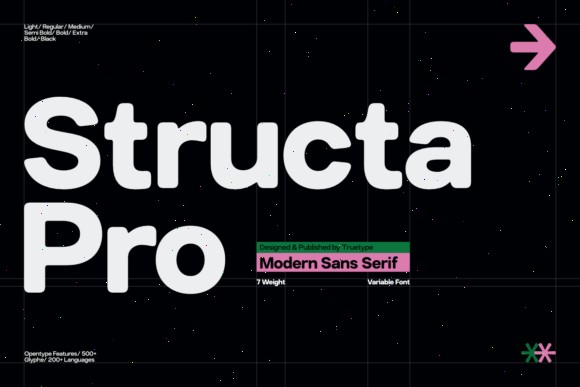
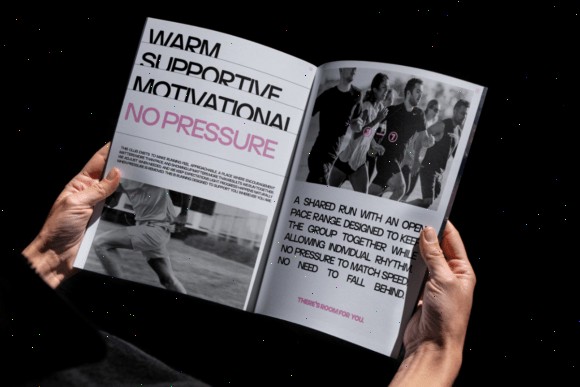
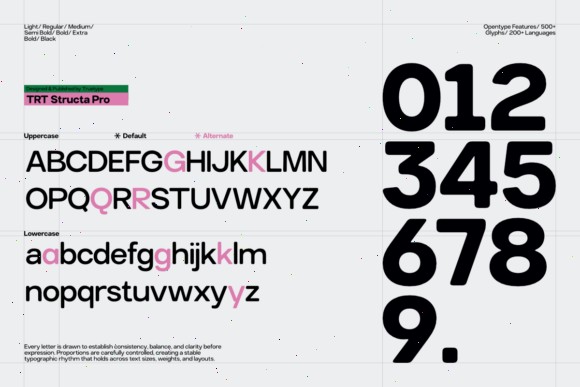
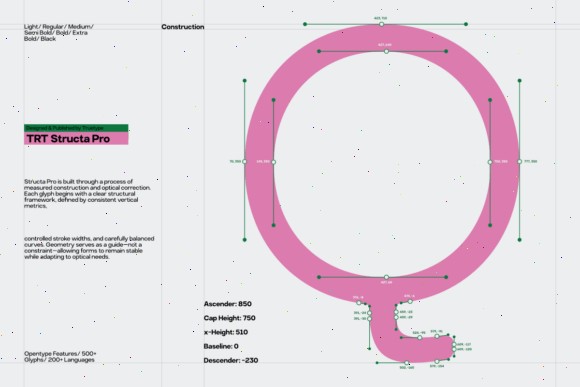
TRT Structa Pro is probably the most balanced option on this list for serious UI work.
It was designed with softness and structure in mind, using rounded terminals and semi-grotesque foundations that feel modern without becoming overly playful.
What stands out:
- excellent readability
- consistent spacing
- multiple weights
- variable font support
- clean digital appearance
The font feels especially strong in:
- mobile navigation
- dashboards
- onboarding screens
- productivity apps
- fintech interfaces
One thing I like about Structa Pro is that it keeps personality subtle. Some rounded fonts become cartoonish quickly, but this one stays professional even in dense UI layouts.
Best for:
- SaaS products
- startup branding
- enterprise apps
- design systems
2. Mallio
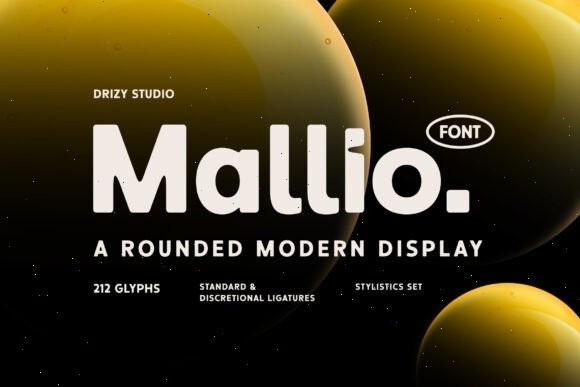
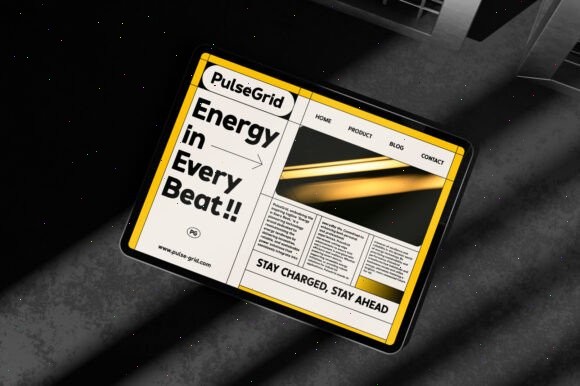
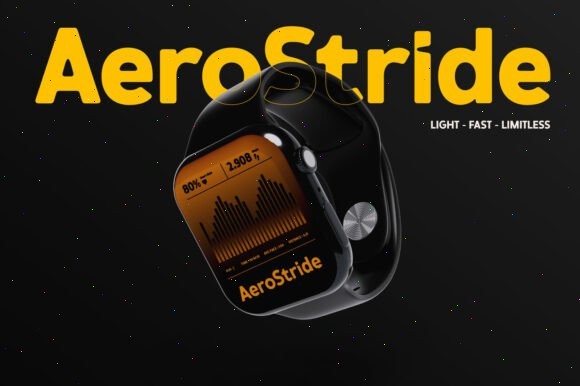
Mallio leans more toward modern startup aesthetics.
Its rounded modern display style gives interfaces a polished and approachable tone while still looking sharp in headers and navigation areas.
The font works particularly well for:
- lifestyle apps
- creative platforms
- modern landing pages
- wellness brands
- social apps
Mallio performs best in medium-to-large UI text. For tiny mobile labels, it can feel slightly heavier than more neutral UI fonts.
What makes it useful:
- soft geometric curves
- modern visual identity feel
- friendly personality
- strong logo potential
3. Softura
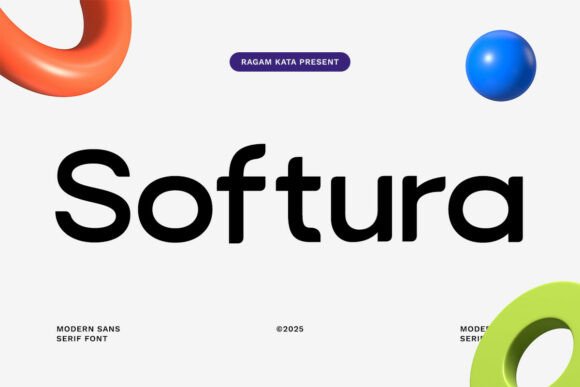
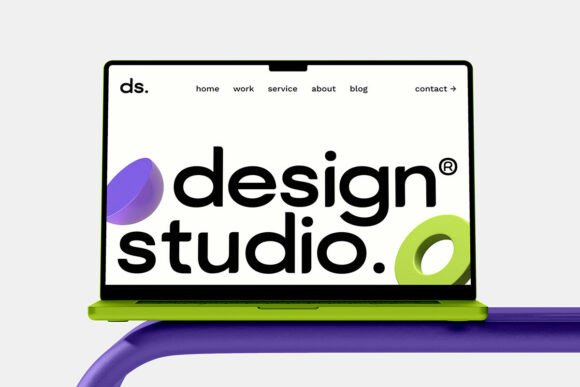
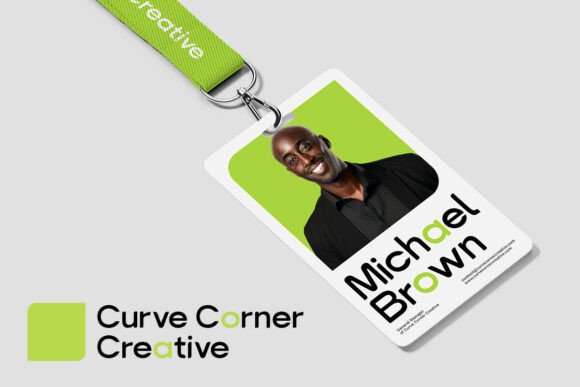
Softura has one of the cleanest โfriendly techโ looks in this group.
The rounded geometry feels smooth without becoming overly futuristic, which makes it easier to use across both interfaces and branding systems.
I can easily see this font working in:
- AI tools
- productivity apps
- design platforms
- educational apps
- onboarding flows
Its softer shapes help reduce visual harshness in interfaces dominated by white backgrounds and minimal color palettes.
Softura also handles:
- UI buttons
- website headers
- product cards
- app menus
better than many experimental rounded fonts.
4. TRT Naron Sans
TRT Naron Sans takes a more semi-grotesque direction.
Compared to softer rounded fonts, this one feels more editorial and structured while still maintaining smooth curves and excellent readability.
One thing that makes it especially practical for interface work:
- large weight family
- clean geometry
- strong readability in small sizes
- professional tone
The extra-light and medium weights are particularly useful for modern mobile apps where typography hierarchy matters.
This is one of the safer choices if you want:
- modern UI typography
- scalable design systems
- clean app branding
- professional product interfaces
without looking too generic.
5. Velizha
Velizha feels modern, minimal, and slightly futuristic.
The smooth rounded edges and geometric structure make it a good fit for:
- technology startups
- website headers
- modern dashboards
- futuristic UI concepts
The font description specifically highlights UI design and branding applications.
Where it works best:
- hero sections
- app branding
- onboarding graphics
- modern presentation interfaces
For long-form UI text, though, itโs slightly more stylized than fonts like Structa Pro or TRT Naron Sans.
6. Stay Alphabet
Stay Alphabet is the most unconventional option on this list.
It mixes sans serif structure with hand-crafted irregularity, creating something that feels more human and creative.
Can rounded fonts look professional?
Absolutely. Modern rounded sans serif fonts are widely used in fintech, SaaS, AI products, and enterprise apps because they feel modern while remaining readable.